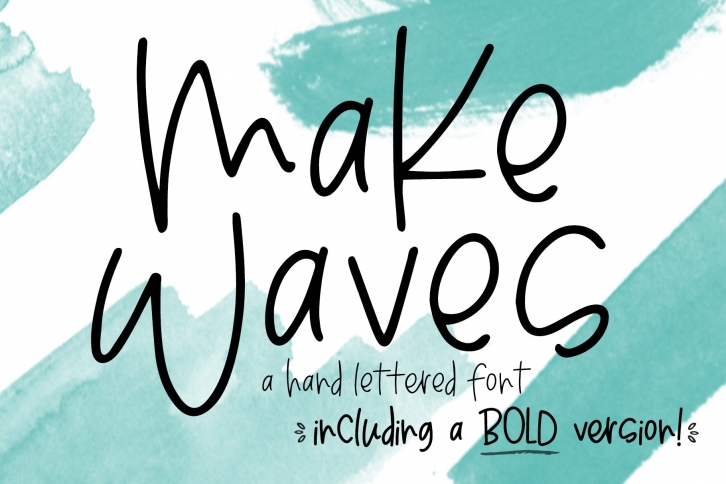
~ ~ Make Waves ~ ~
This hand-lettered font comes in regular and BOLD! It has a fun and quick hand written look. Make Waves font is perfect for all your designs and craft projects! This can be used in many ways, including eye catching modern, minimal quotes and designs. This is such a cute font for wedding invitations, Instagram posts, blogs, and more!
There are 18 ligatures included in this font. Ligatures are so great because they make the font feel more hand written! The font looks awesome without the ligatures, but they just add a special touch!
This font includes multilingual support for: Afrikaans, Albanian, Asu, Basque, Bemba, Bena, Chiga, Cornish, Danish, English, Faroese, Filipino, French, Friulian, Galician, German, Gusii, Icelandic, Indonesian, Irish, Italian, Kabuverdianu, Kalenjin, Kinyarwanda, Low German, Luo, Luxembourgish, Luyia, Machame, Makhuwa-Meetto, Makonde, Malagasy, Malay, Manx, Morisyen, North Ndebele, Norwegian Bokmål, Norwegian Nynorsk, Nyankole, Oromo, Portuguese, Romansh, Rombo, Rundi, Rwa, Samburu, Sango, Sangu, Scottish Gaelic, Sena, Shambala, Shona, Soga, Somali, Spanish, Swahili, Swedish, Swiss German, Taita, Teso, Vunjo, Welsh, Zulu